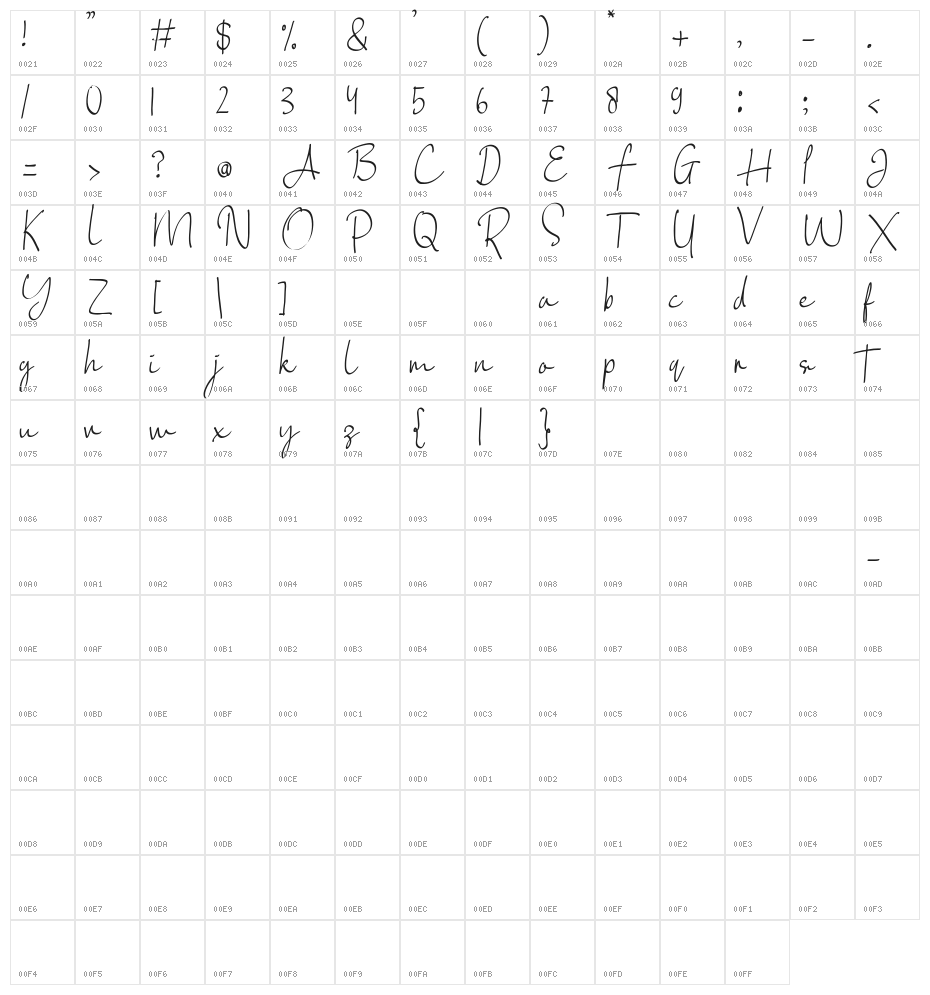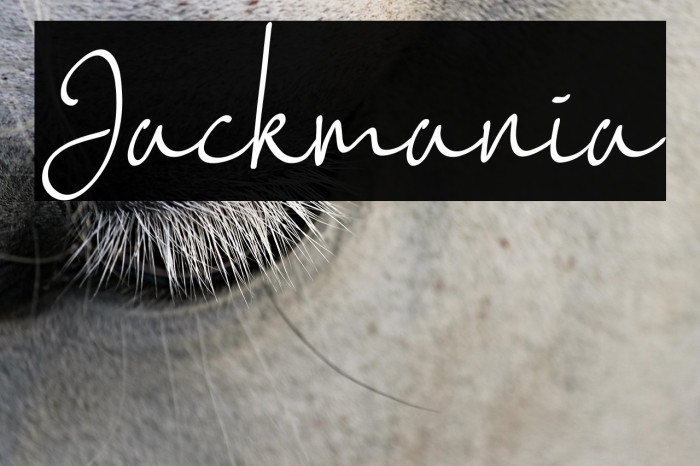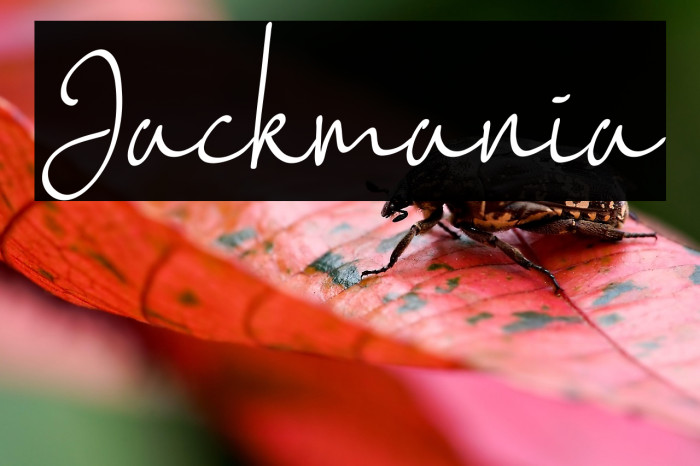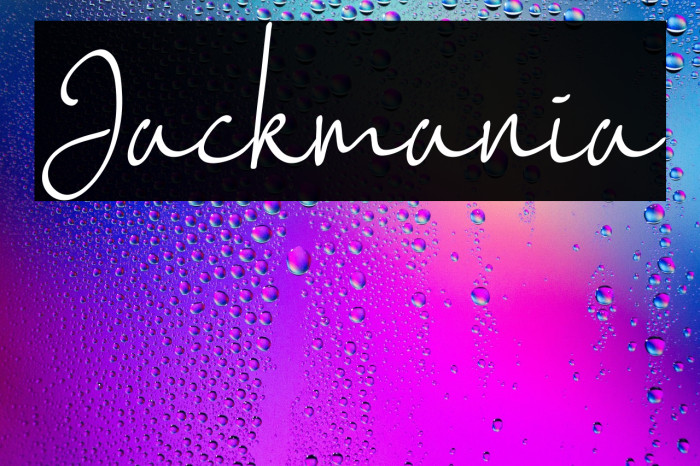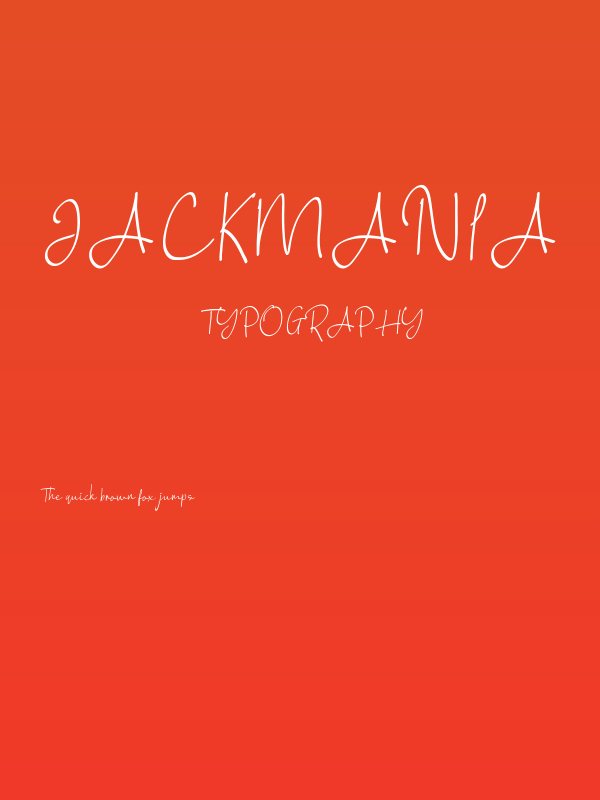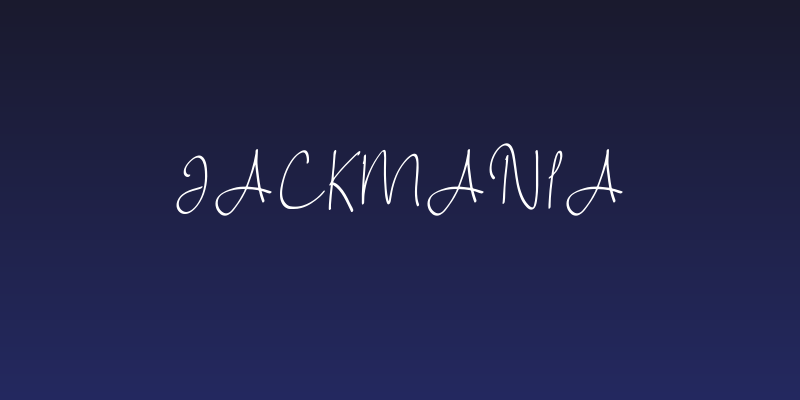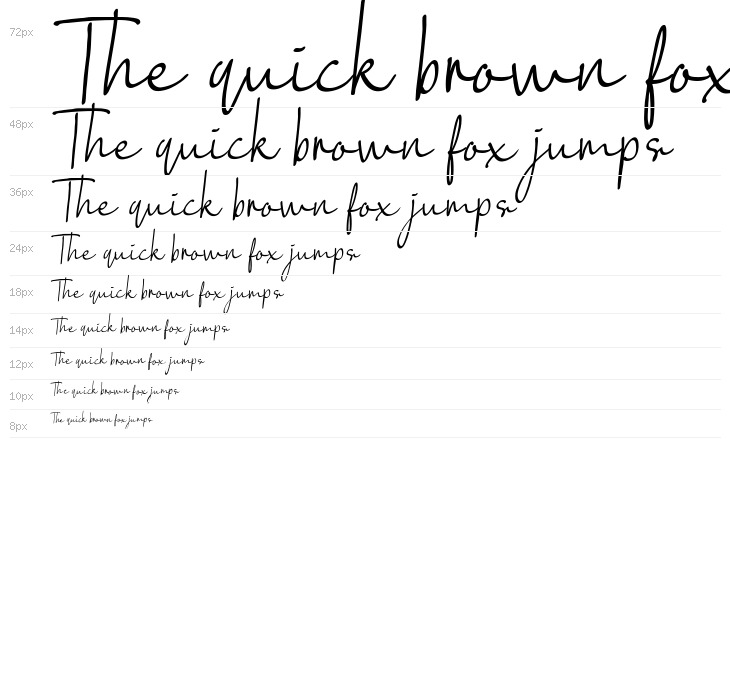
Jackmania Font
Jackmania Description
This font exhibits a lively and expressive handwritten style, characterized by its fluid and dynamic strokes. The uppercase letters have a playful, slightly irregular form, while the lowercase letters maintain a consistent, flowing script. The numerals are clear and legible, complementing the overall aesthetic. Special characters are creatively integrated, adding to the font's unique personality. The design is both casual and elegant, making it versatile for various applications.